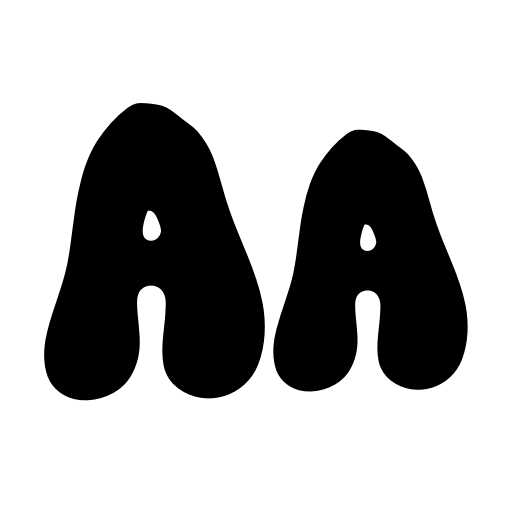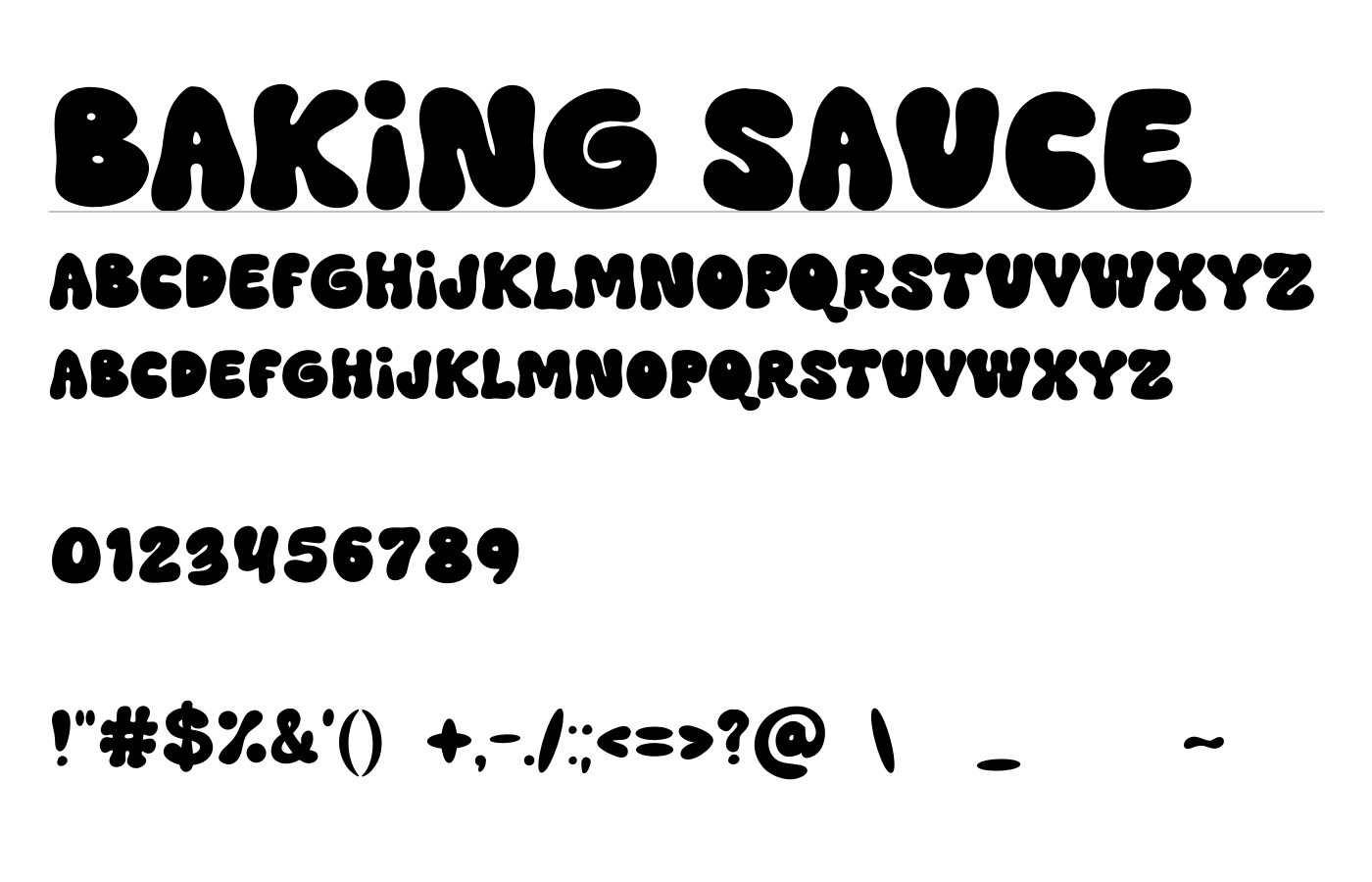
Baking Sauce is a playful, rounded display font with bold, chunky letterforms that evoke a friendly and fun vibe. Its irregular shapes and soft edges give it a casual, hand-crafted feel, making it ideal for branding, packaging, and headlines where a lively, approachable personality is desired. This font works especially well for creative projects aimed at a youthful or whimsical audience.
BAKING SAUCE Font
About BAKING SAUCE Font